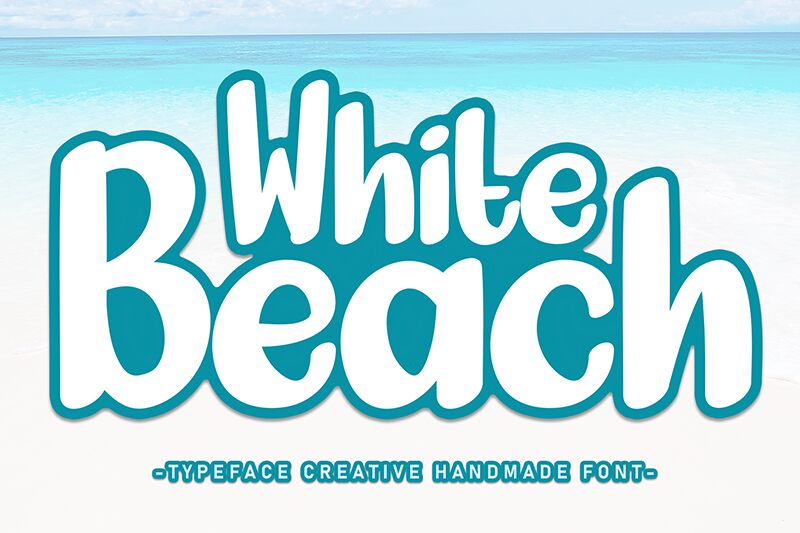
White Beach
White Beach font by Scratchones is all about those relaxing vibes with its rounded edges and cheerful appearance. The brush strokes of this retro-inspired typeface instantly transport readers to more leisurely surroundings, making it the perfect choice for any project dealing with free-spirited themes or aesthetics.